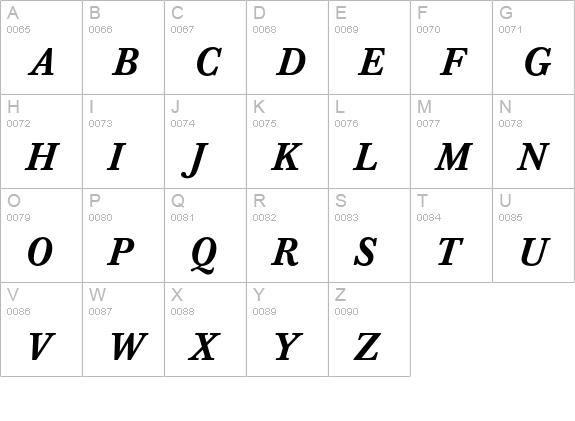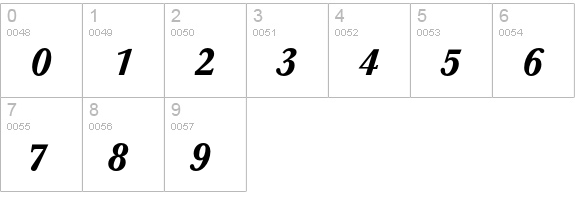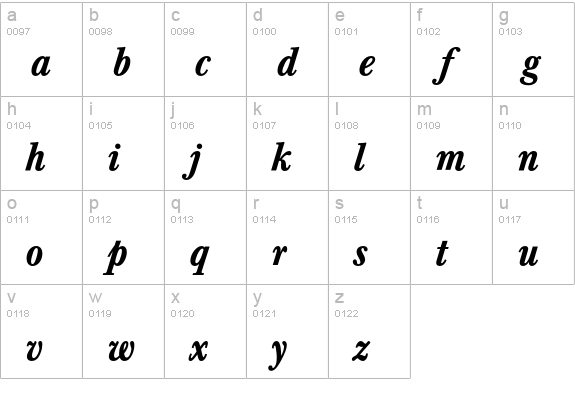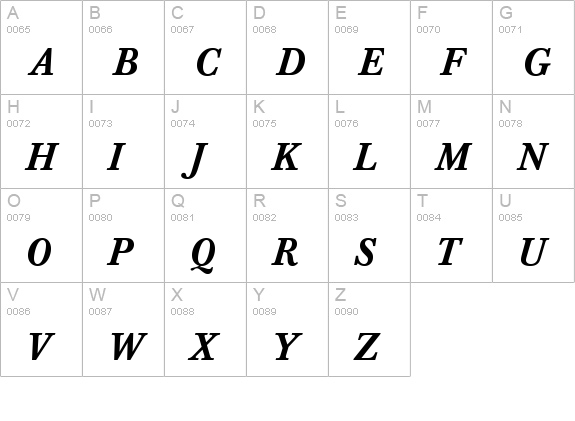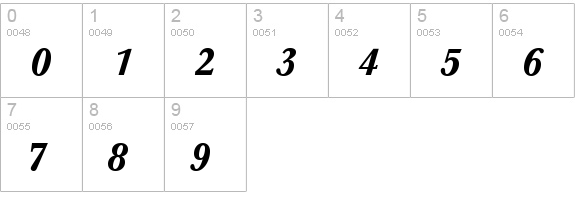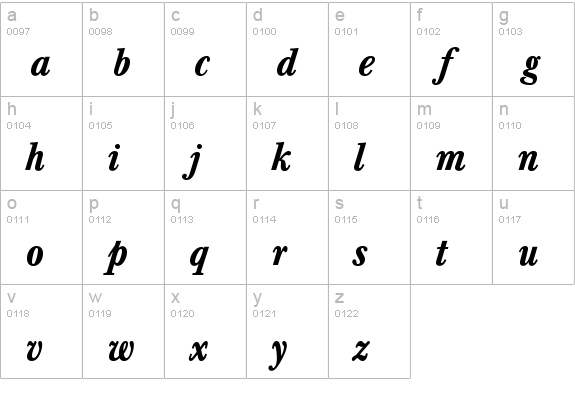
Baskerville T Medium Italic Font Details
Baskerville T Medium Italic is a balanced, medium-weight, italic variant in the Baskerville typeface family \xE2\x80\x94 well suited to sub-headlines, navigation, and balanced editorial work.
Baskerville T Medium Italic font is a timeless and elegant typeface that exudes sophistication and style. The italicized version of the classic Baskerville typeface adds a touch of flair and modernity to any design project. Its sleek and flowing curves make it ideal for conveying a sense of sophistication and refinement. This font is perfect for creating eye-catching headings, elegant invitations, stylish logos, and much more. Whether you're designing for print or digital media, Baskerville T Medium Italic font is sure to make a lasting impression. Best of all, this font is available for free download at FontsMarket.com. Simply visit the website to access this exquisite typeface and elevate your design projects to the next level. Don't miss out on the opportunity to enhance your creative work with the timeless beauty of Baskerville T Medium Italic font.